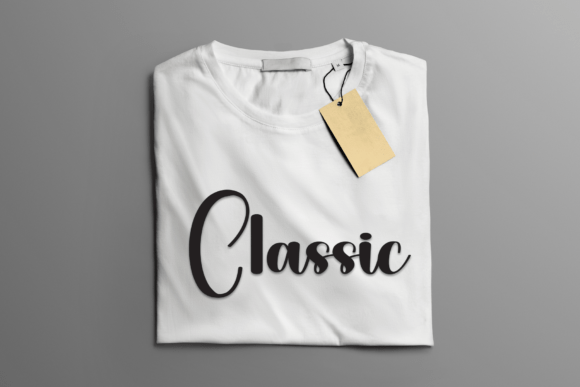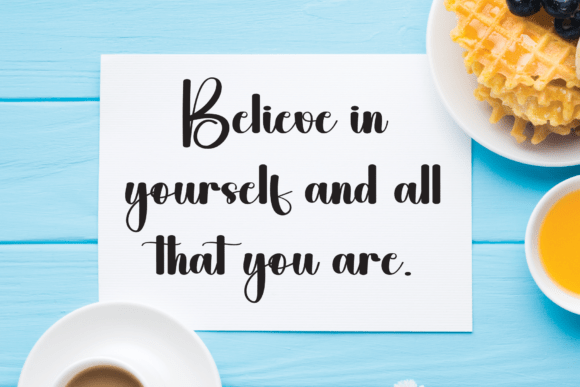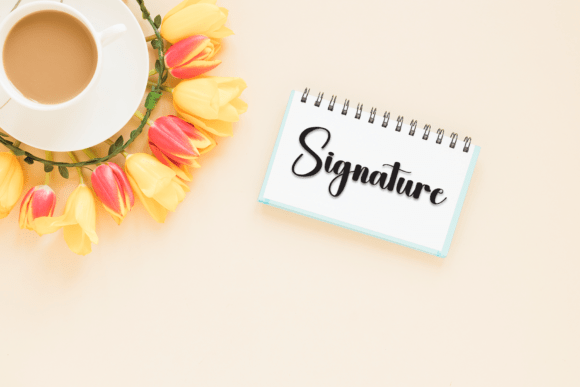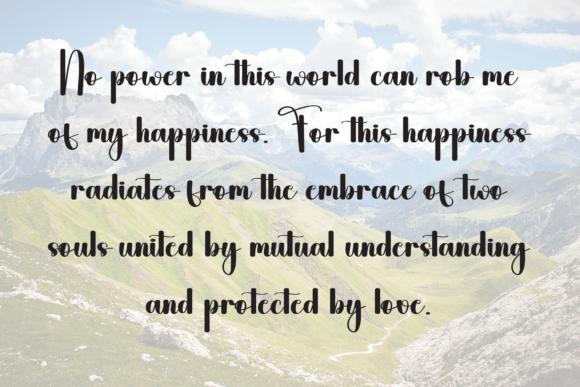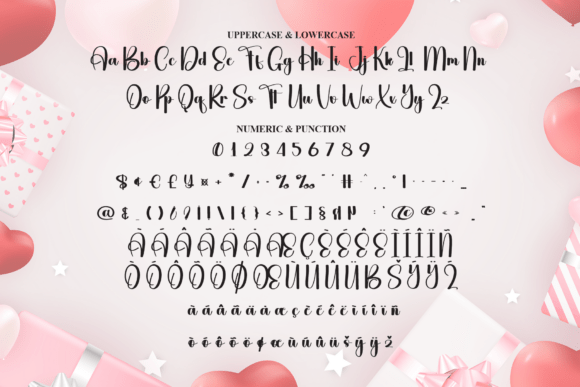
Happy Valentine Font: The Perfect Addition to Your Design Collection
Are you on the lookout for a font that screams fun, playfulness, and love? Look no further than the Happy Valentine Font! This delightfully charming and heartwarming handwritten font strikes the perfect balance between sweet and bold, making it an excellent choice for designers and crafters alike. In this article, we’ll dive into the world of Happy Valentine Font, exploring its features, uses, and the creative possibilities it offers.
A Font that Exudes Fun and Playfulness
The Happy Valentine Font is designed to bring a sense of joy and whimsy to your designs. Its playful and energetic vibe makes it perfect for creating captivating wedding invitations, engaging cards, and other materials that require a fun-filled twist. Whether you’re a designer, crafter, or DIY enthusiast, this font is sure to inspire your creativity and add a touch of personality to your projects.
Key Features of Happy Valentine Font
- Handwritten style: The Happy Valentine Font boasts a beautiful, handwritten style that adds a personal touch to your designs.
- Perfect balance between sweet and bold: This font strikes the ideal balance between sweetness and boldness, making it versatile and suitable for various design applications.
- Fun and playful vibe: The Happy Valentine Font exudes a sense of fun and playfulness, making it perfect for designs that require a lighthearted and energetic feel.
- Easy to read: Despite its playful nature, the font remains easy to read, ensuring that your message is conveyed clearly and effectively.
Uses of Happy Valentine Font
The Happy Valentine Font is an incredibly versatile font that can be used in a wide range of design applications, including:
- Wedding invitations: Create beautiful, one-of-a-kind wedding invitations that set the tone for a joyful and celebratory occasion.
- Greeting cards: Design engaging and heartfelt greeting cards for special occasions, such as Valentine’s Day, birthdays, and anniversaries.
- DIY projects: Add a personal touch to your DIY projects, such as scrapbooking, crafting, and home decor.
- Social media graphics: Use the Happy Valentine Font to create eye-catching social media graphics that showcase your personality and style.
Tips for Using Happy Valentine Font
To get the most out of the Happy Valentine Font, consider the following tips:
- Pair with complementary fonts: Combine the Happy Valentine Font with complementary fonts to create visual interest and hierarchy in your designs.
- Experiment with colors: Play around with different colors and color combinations to enhance the font’s playful and energetic vibe.
- Use it sparingly: While the Happy Valentine Font is perfect for headlines and titles, use it sparingly in body text to maintain readability.
In conclusion, the Happy Valentine Font is a delightful addition to any design collection. Its unique blend of sweetness and boldness, combined with its playful and energetic vibe, makes it perfect for a wide range of design applications. Whether you’re a designer, crafter, or DIY enthusiast, this font is sure to inspire your creativity and add a touch of personality to your projects. So why wait? Explore the versatility of the Happy Valentine Font and let your creativity run wild!
Get Ready to Fall in Love with Your Designs
With the Happy Valentine Font, you’ll never go out of style. Its timeless charm and whimsical nature ensure that your designs will be loved and cherished for years to come. So go ahead, give it a try, and experience the joy of creating with this amazing font!